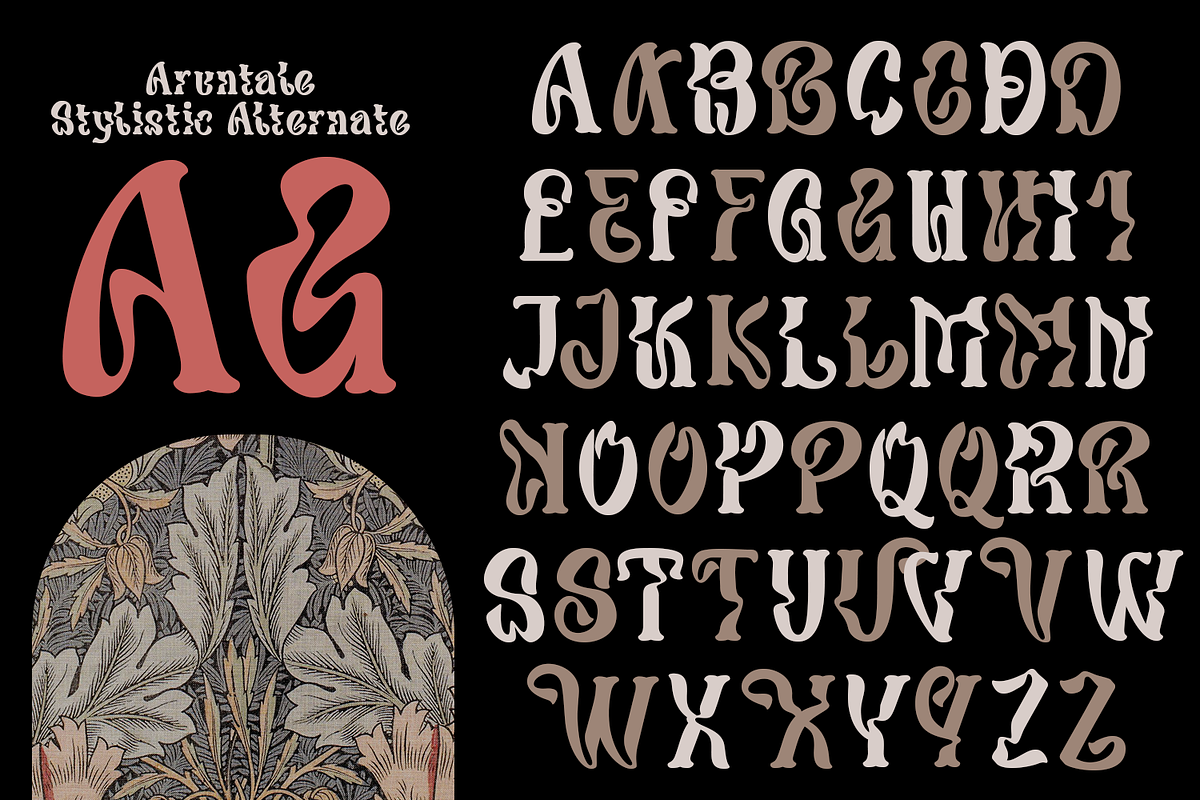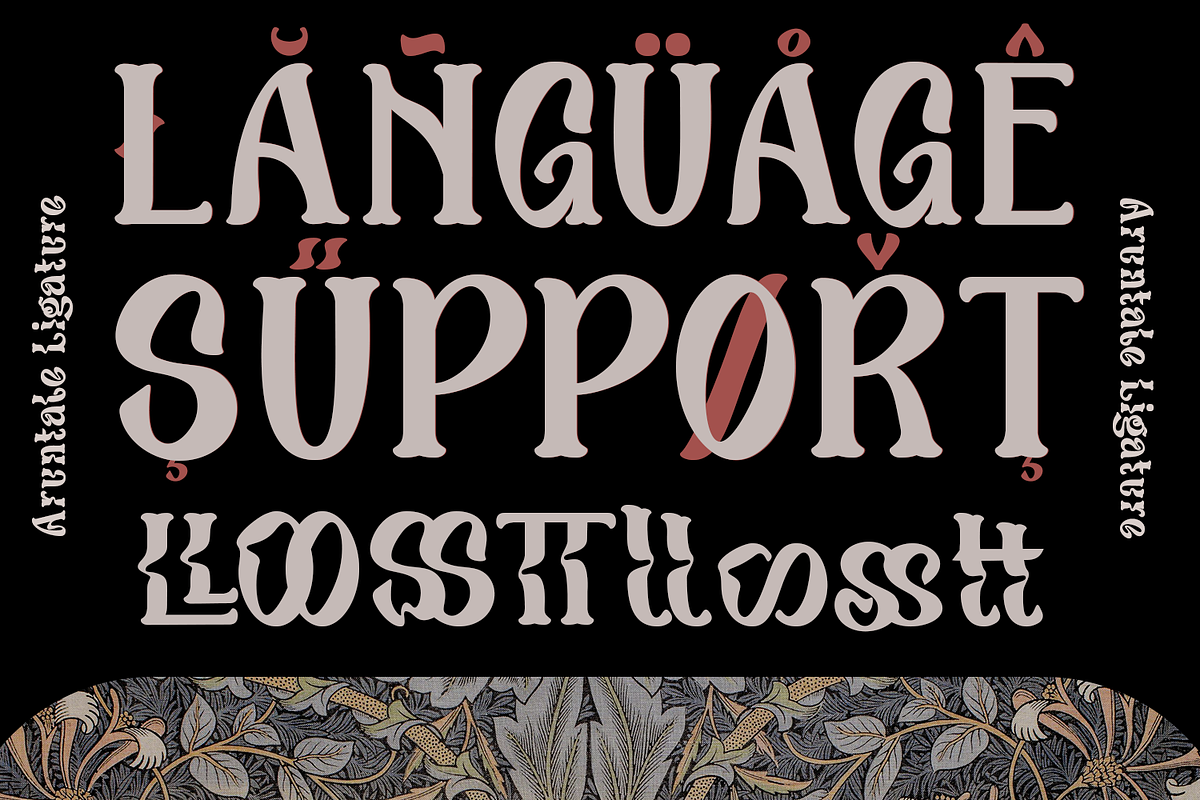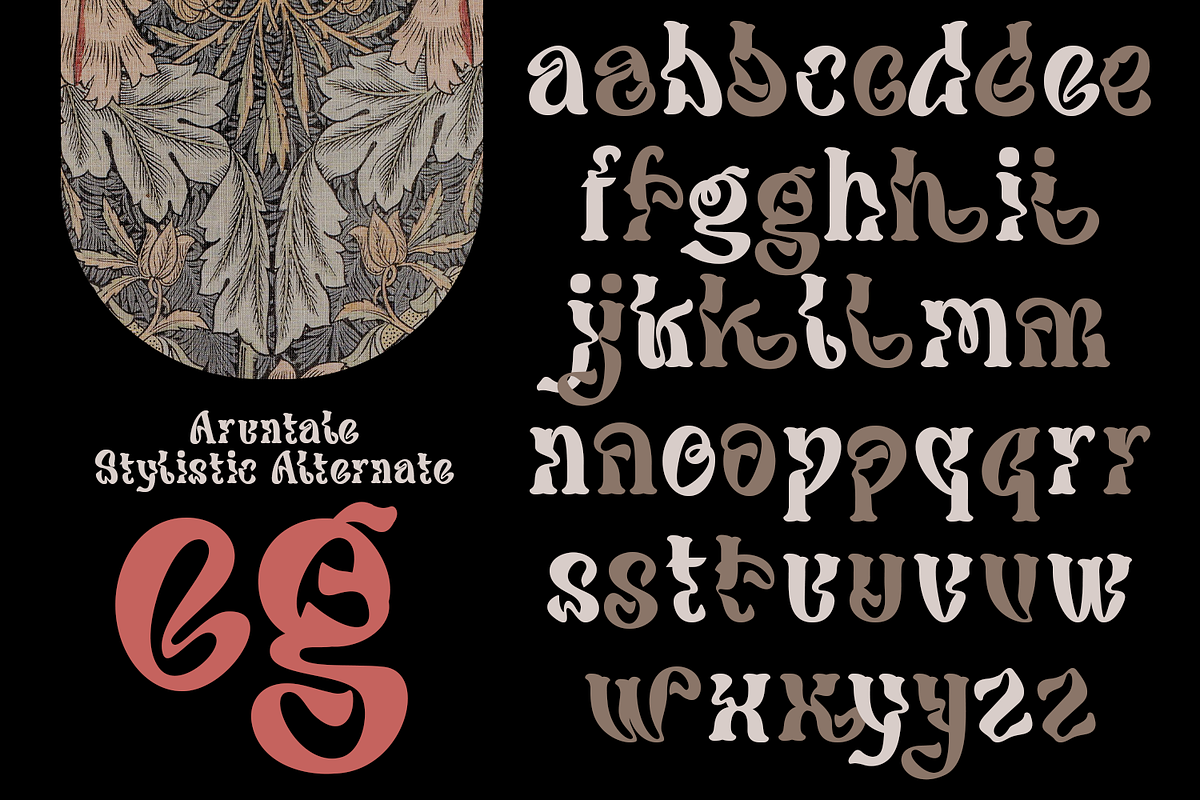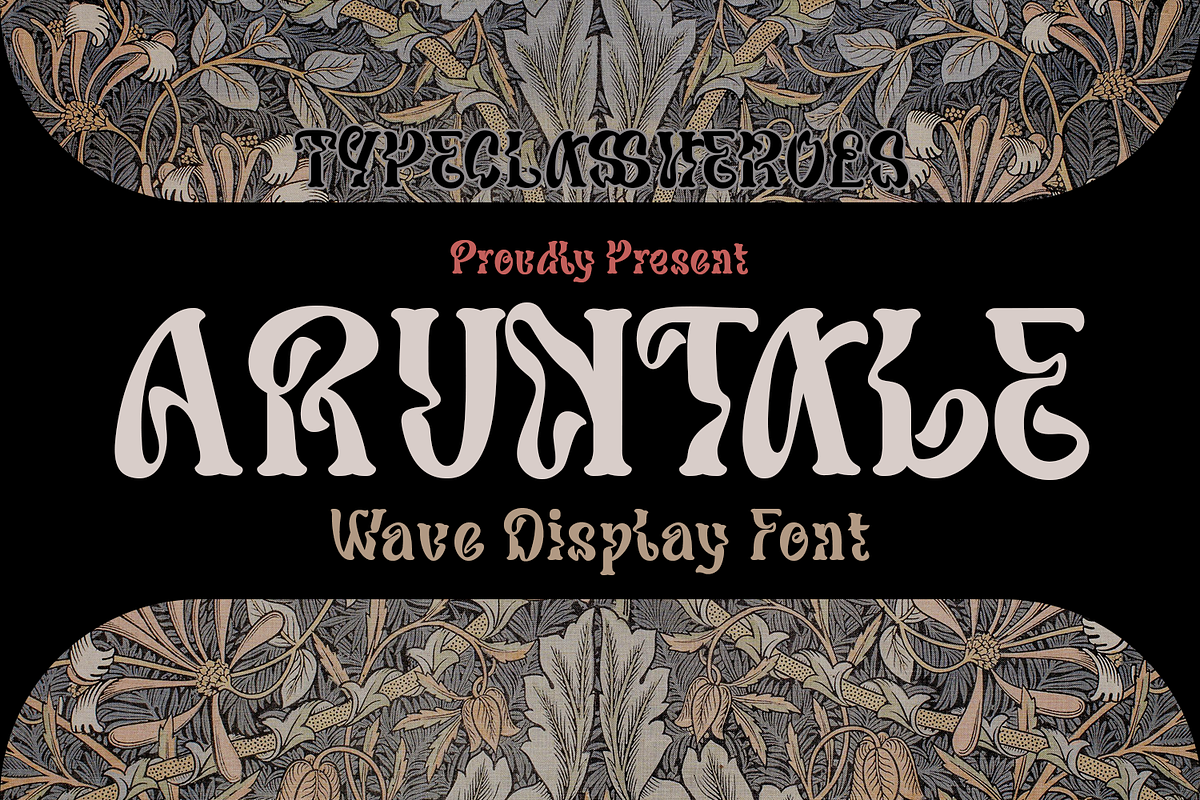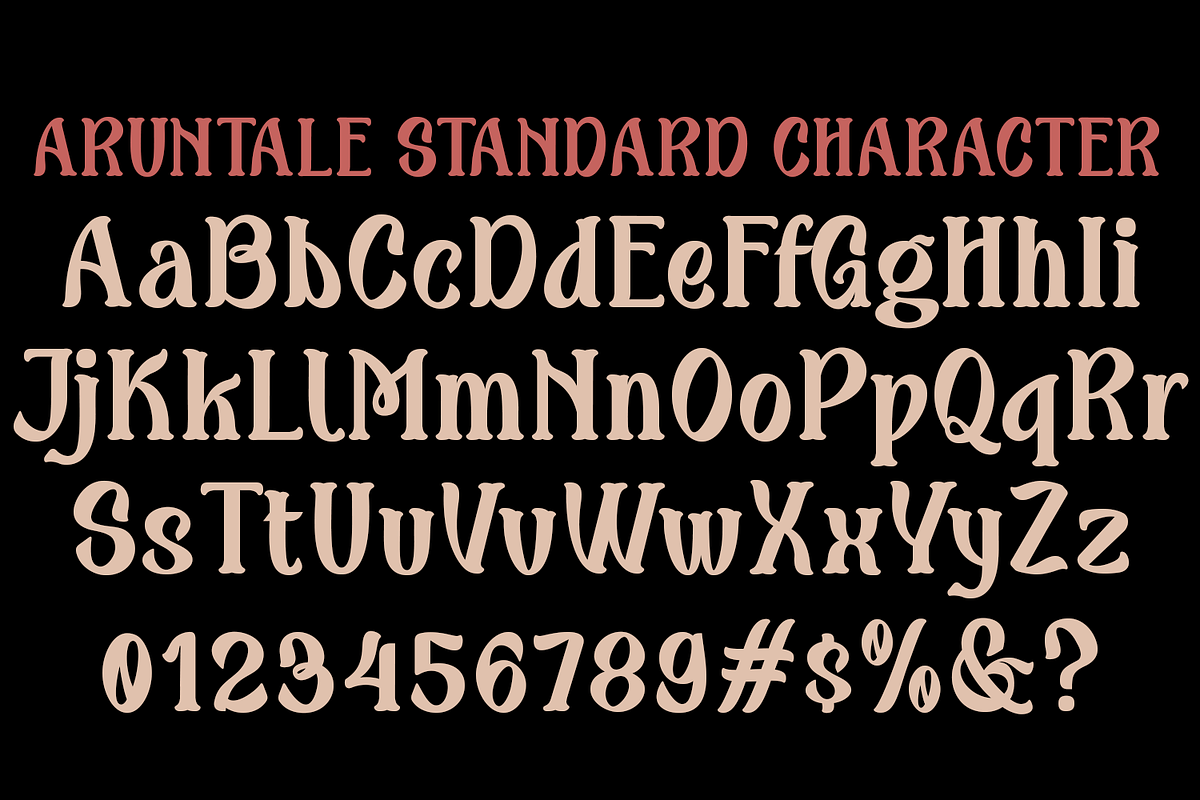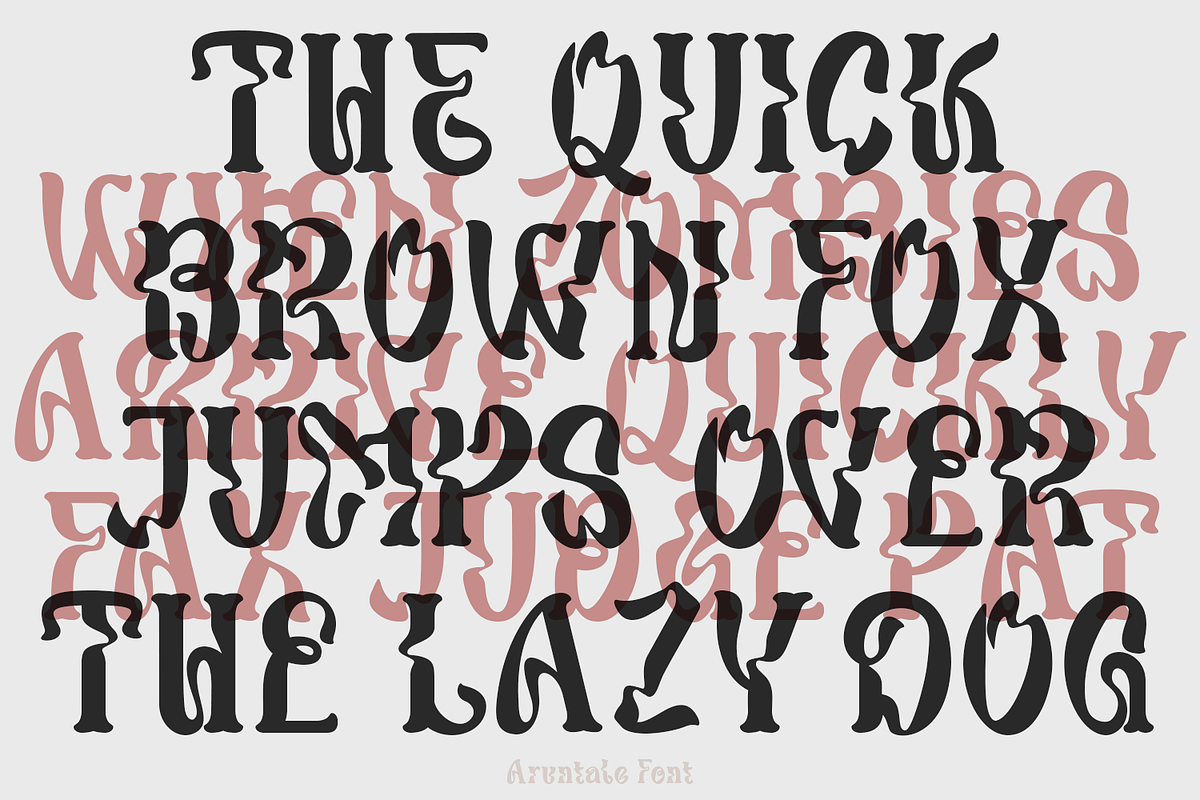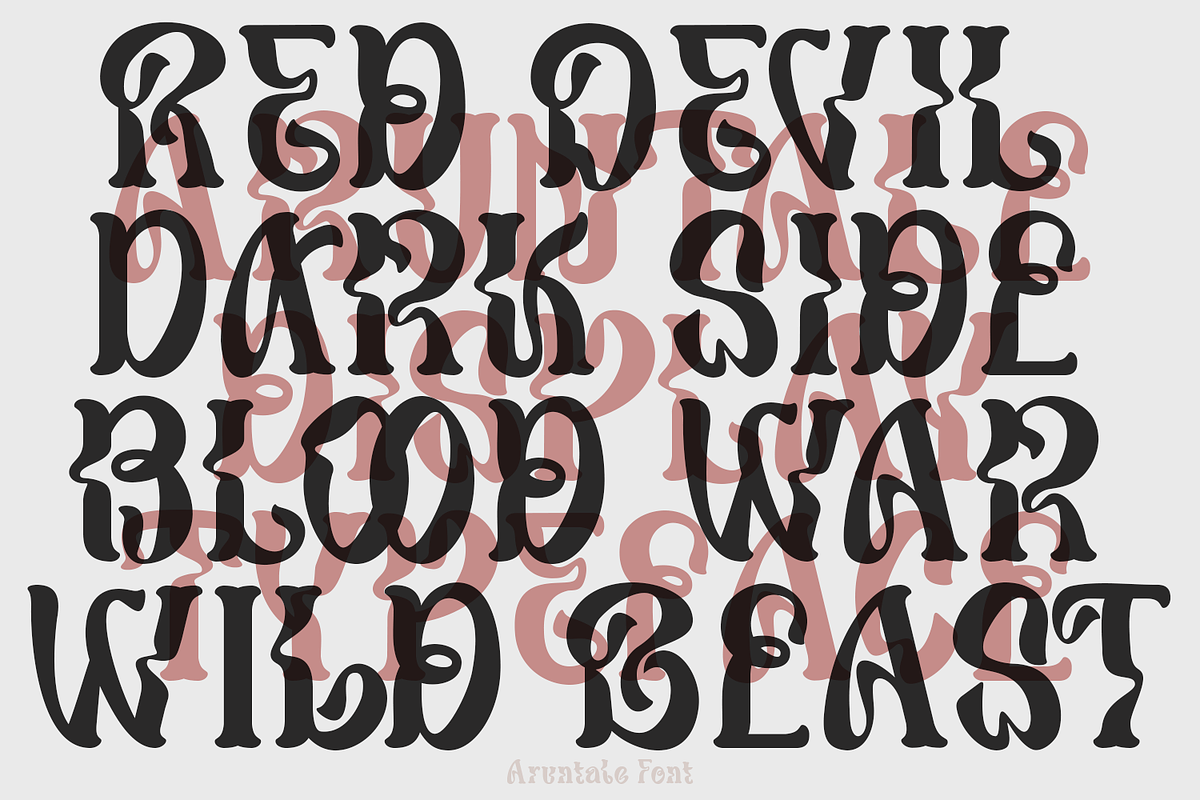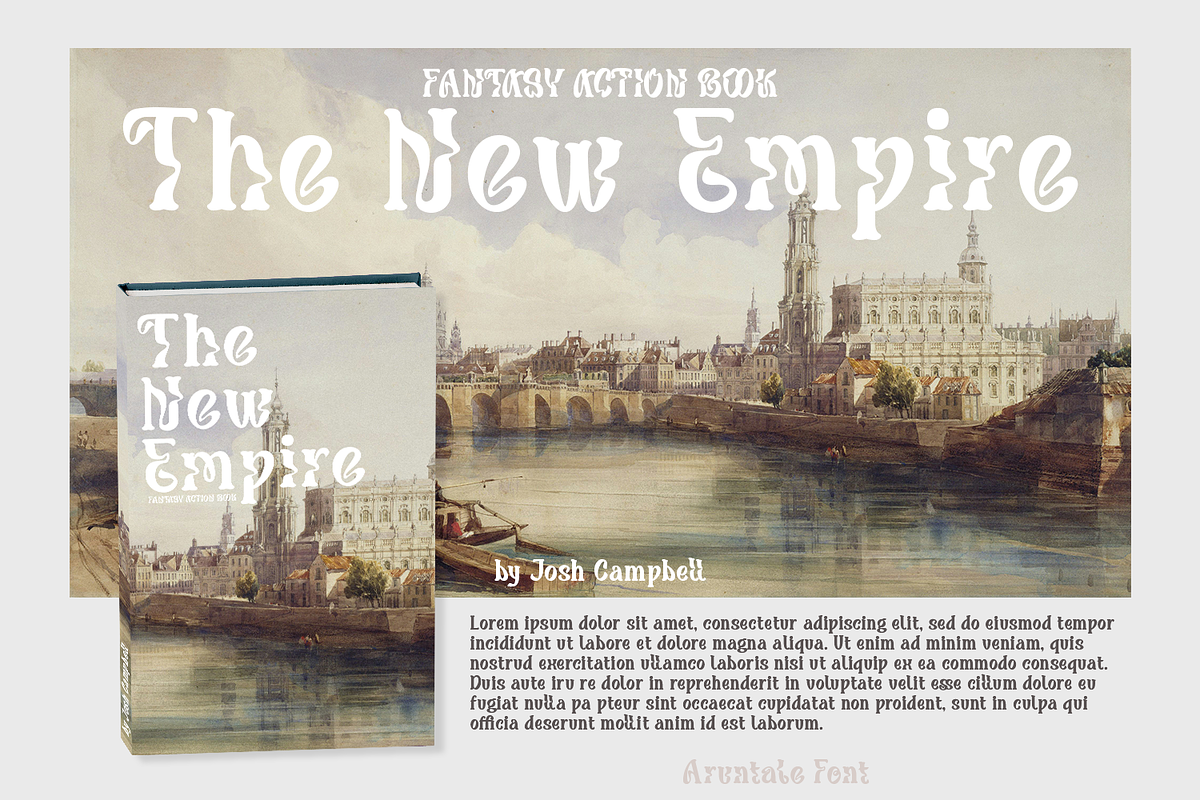
Aruntale Font
Its elegant proportions make it perfect for everything from body text to headlines, making it a perfect choice for any project. You will get vintage, classy, elegant, and certainly unique logos with this font.